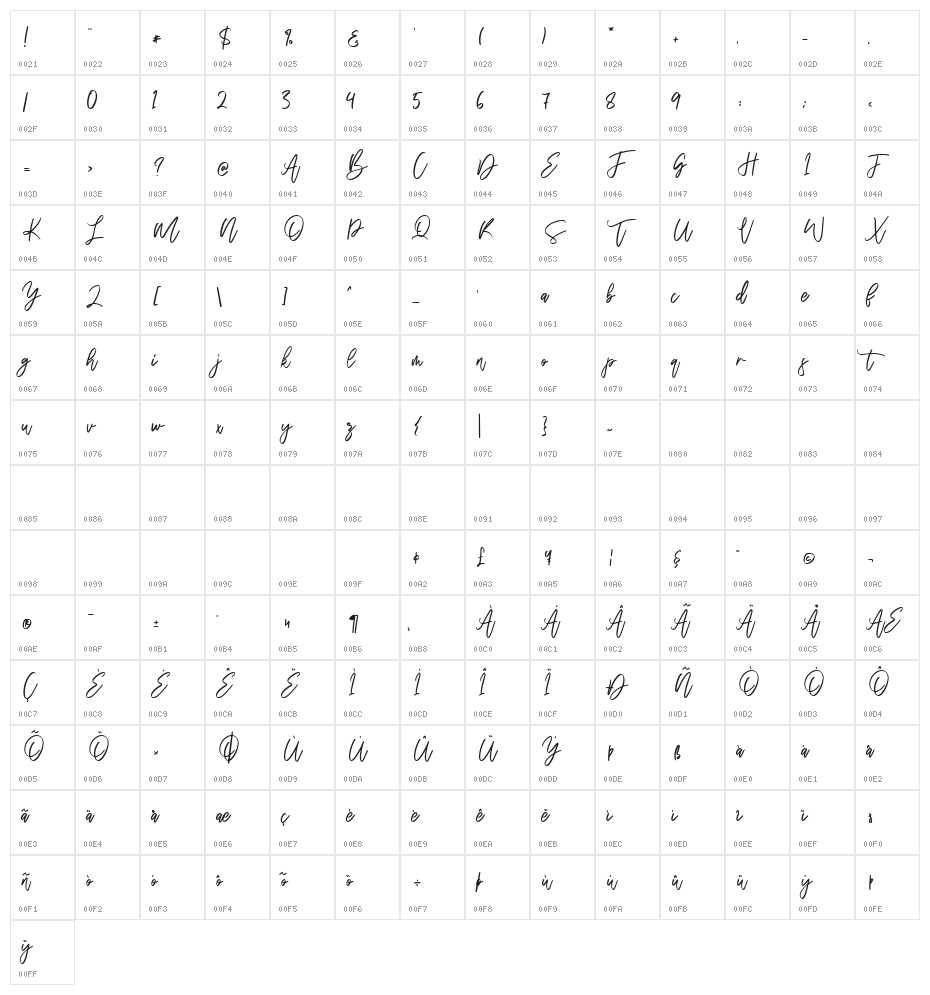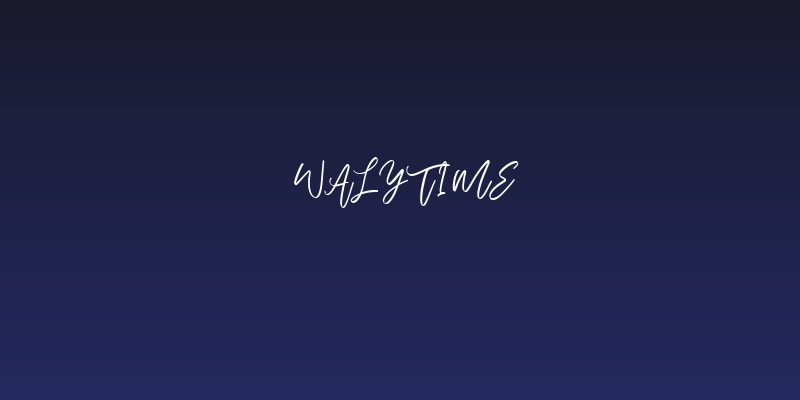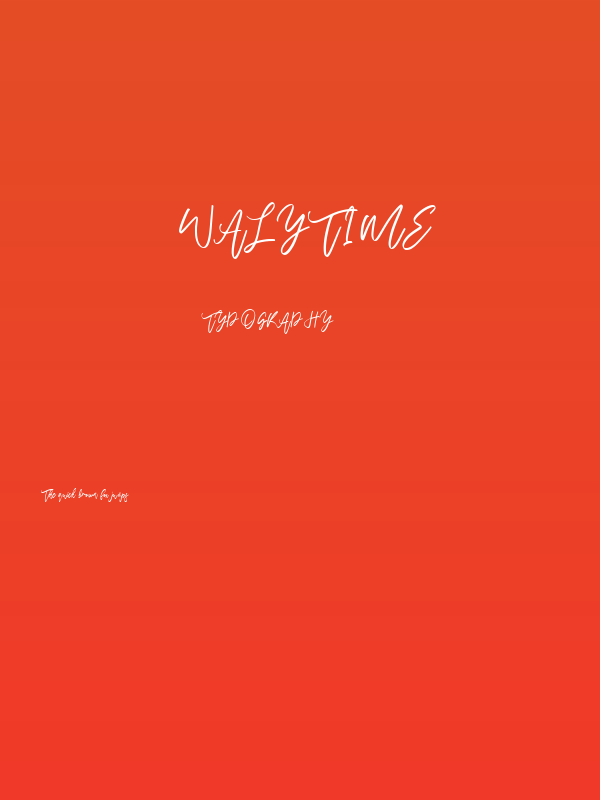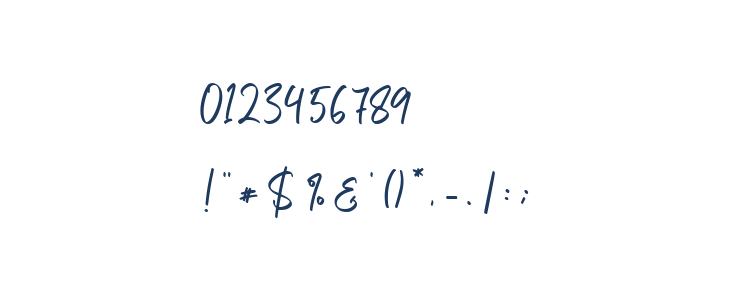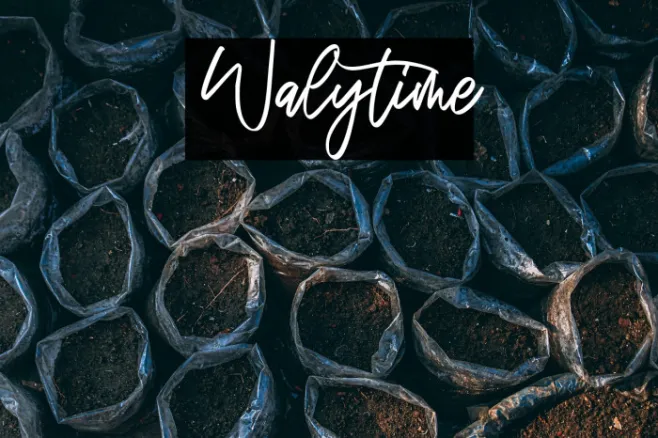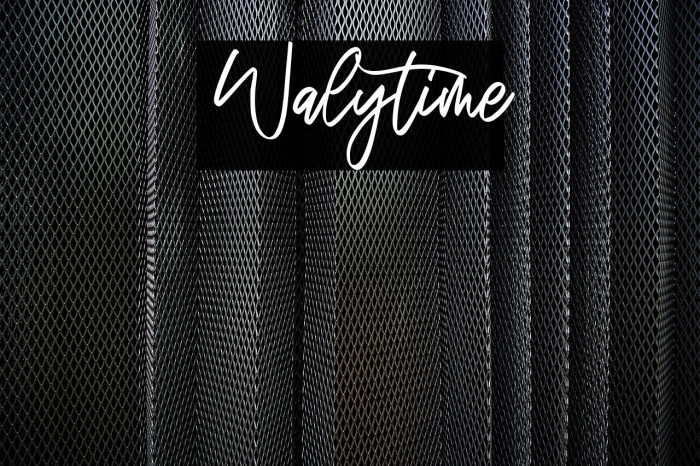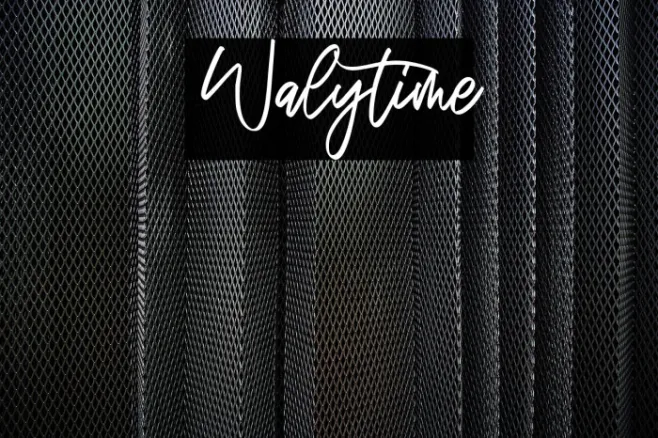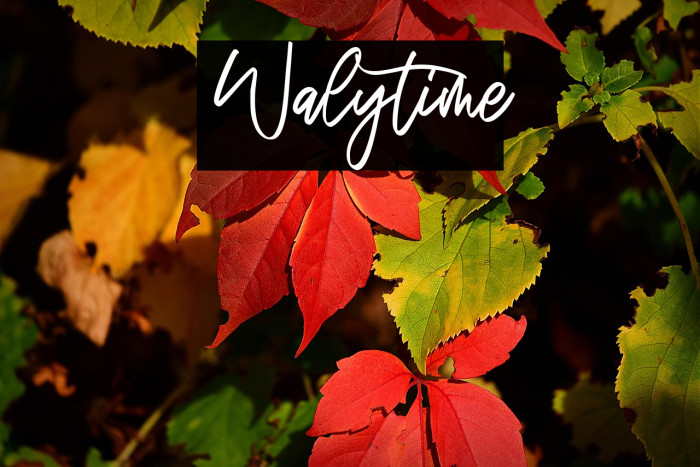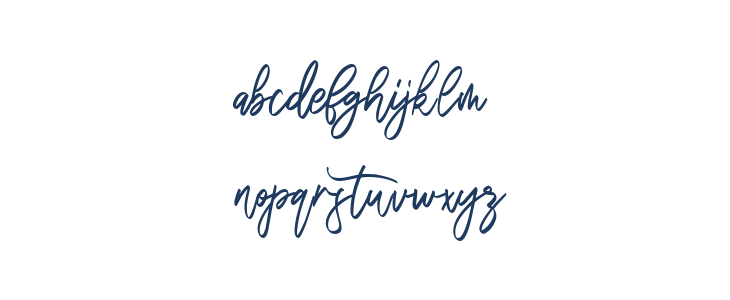
Walytime Font
Walytime Description
This font features a lively and flowing script style, characterized by its elegant, handwritten appearance. The letters are connected in a fluid manner, giving it a natural and personal touch. The uppercase letters are bold and slightly larger, while the lowercase letters maintain a consistent flow. The numbers and special characters are designed to match the overall style, ensuring a cohesive look. The strokes vary in thickness, adding a dynamic feel to the text. This font is perfect for projects that require a personal or artistic touch, such as invitations, greeting cards, or branding materials.